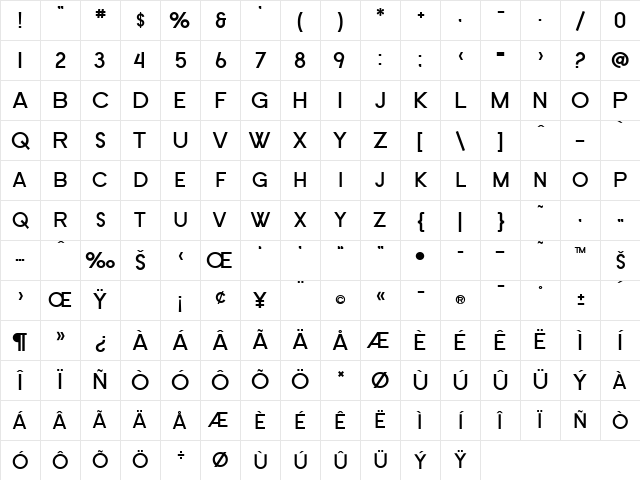
Complete SF New Republic SC Bold glyph index. Displaying only characters natively supported by SF New Republic SC Bold font.
SF New Republic SC is a composed and adaptable typeface that performs quietly and consistently across a wide range of design contexts. Its bold stroke weight gives it real presence on the page.